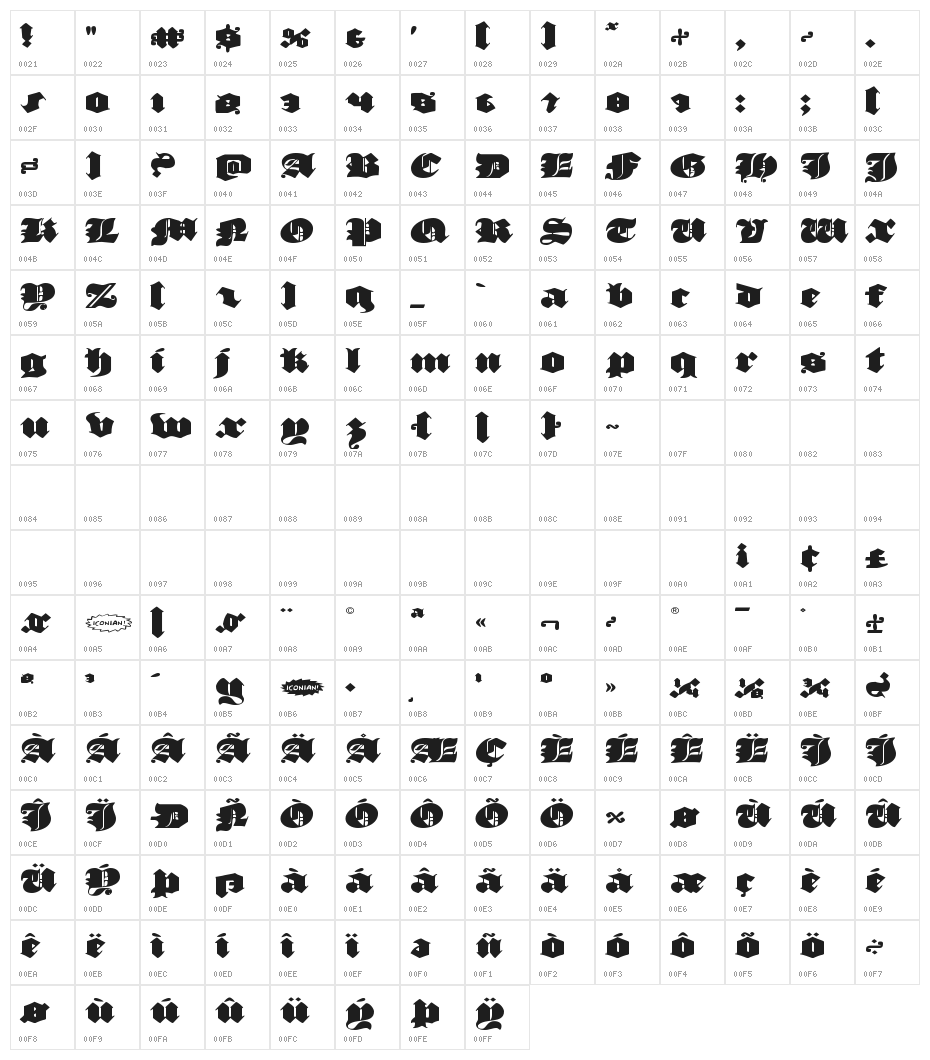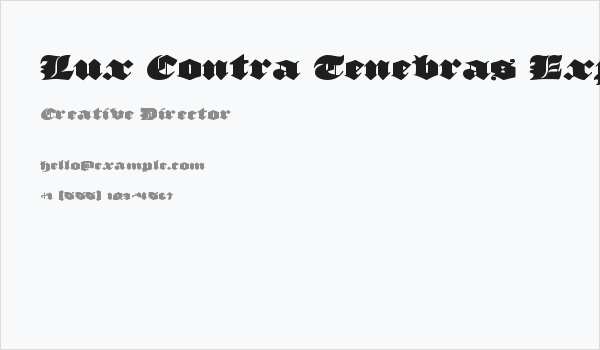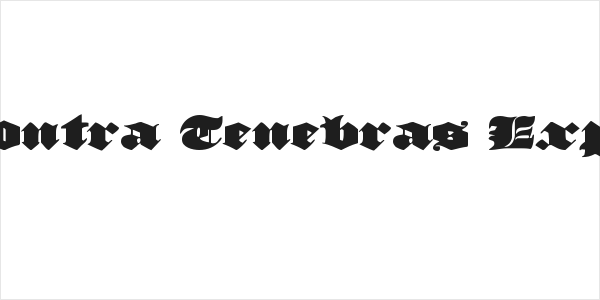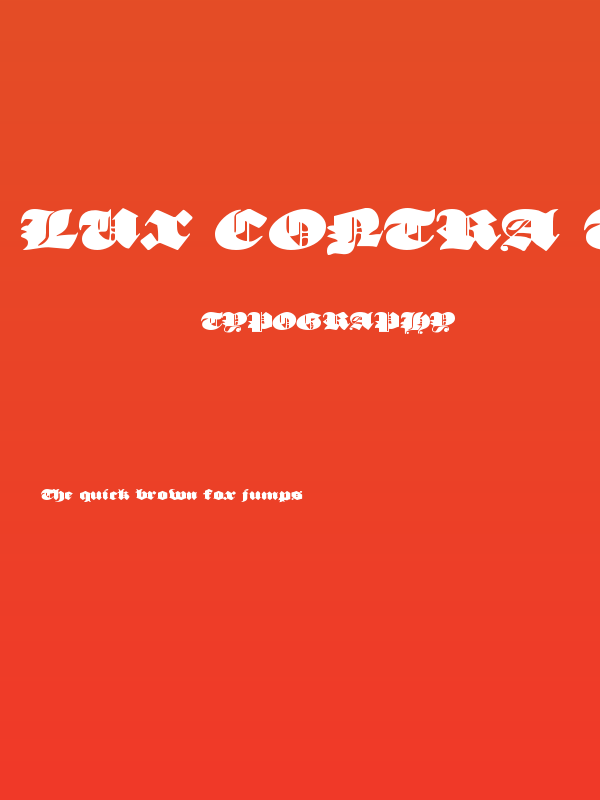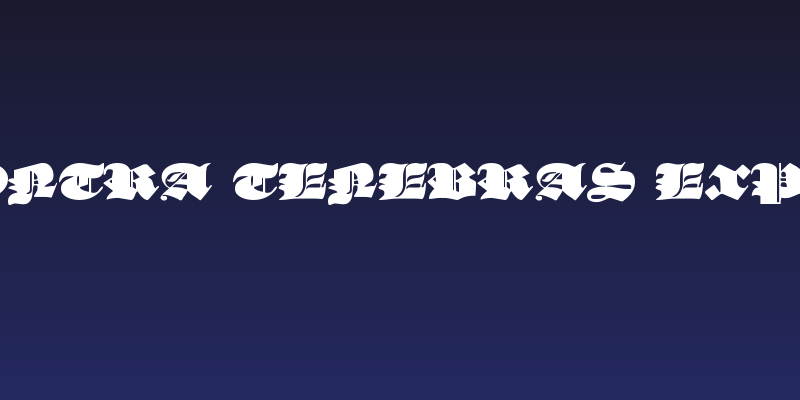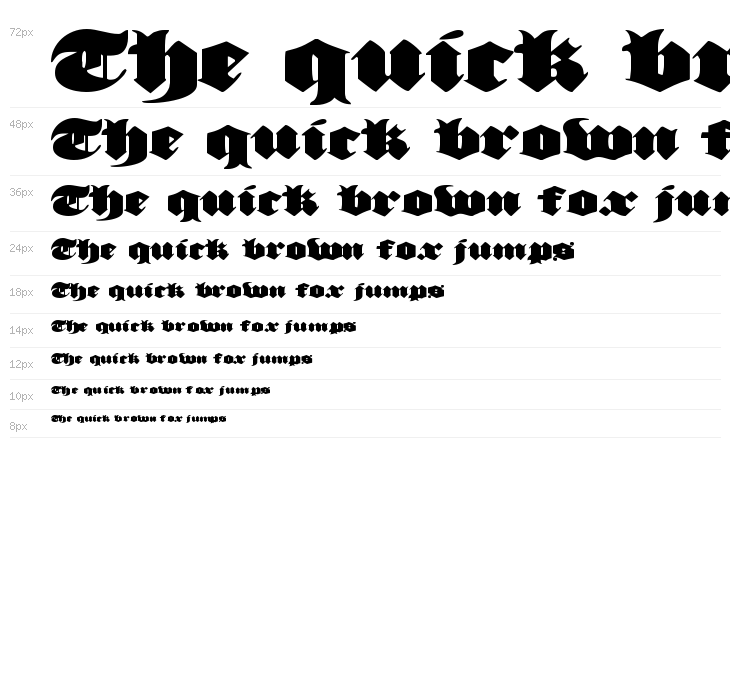
Lux Contra Tenebras Expanded Font
Lux Contra Tenebras Expanded Description
This font features a bold and dramatic blackletter style, characterized by its intricate and ornate letterforms. The strokes are thick and angular, with sharp serifs and decorative elements that give it a medieval and gothic appearance. The uppercase letters are particularly elaborate, with flourishes and embellishments that enhance its historical feel. The lowercase letters maintain the same level of detail, ensuring consistency across the typeface. Numbers and special characters are designed to match the overall aesthetic, making it suitable for projects that require a touch of antiquity and elegance.
| Overall Style | Gothic, Medieval |
| Use Case | Headlines, Logos, Decorative text |
| Proposed Projects | Ideal for use in historical or fantasy-themed designs, such as book covers, posters, and branding for events or products that want to convey a sense of tradition and grandeur. |